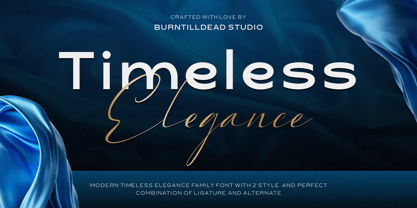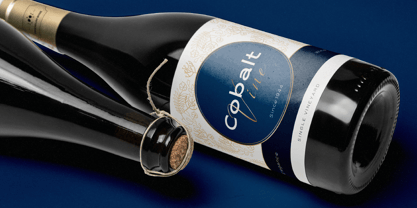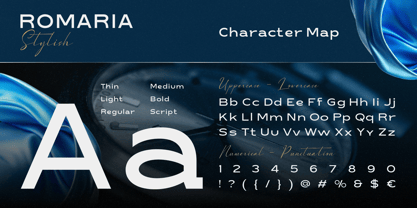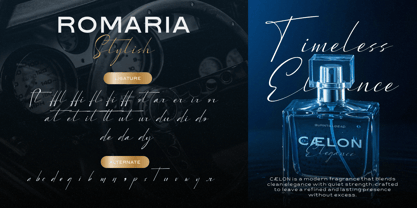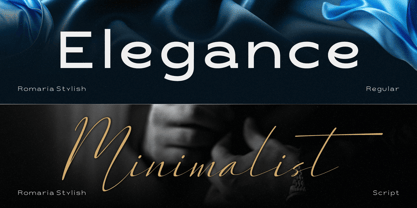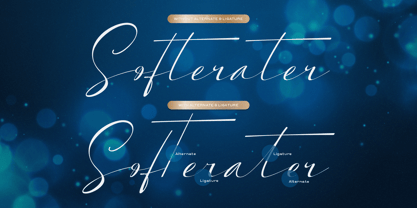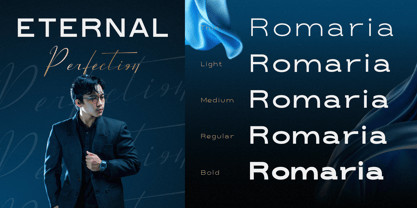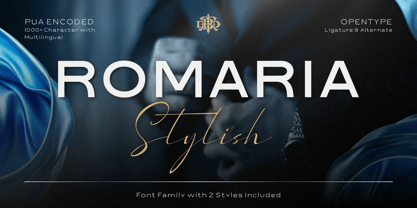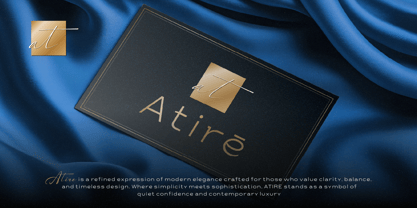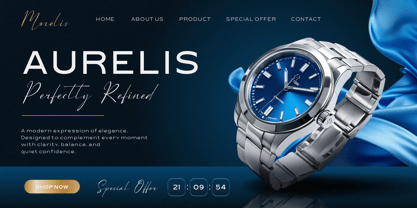
Romaria Stylish
The Romaria Stylish Font Family was designed by Eric Kurniawan and published by Burntilldead. Romaria Stylish contains 6 styles and family package options. More about this family
Romaria Stylish is a modern elegant typeface designed to express timeless sophistication with a clean, contemporary touch. Crafted for designers who love clarity, balance, and refined aesthetics, Romaria brings a quiet confidence to every design. This font family comes with two styles — a sleek sans serif and a graceful script — allowing you to create beautiful contrast in a single layout. Perfectly paired, they work harmoniously for luxury branding, editorial design, fashion projects, and premium product presentations. Whether you’re designing a watch brand, perfume label, magazine layout, wedding stationery, or modern lifestyle branding, Romaria Stylish delivers a polished and timeless look with effortless elegance. Features: A - Z set (Uppercase & Lowercase), Number, Punctuation, Alternates, Ligatures, Multilingual